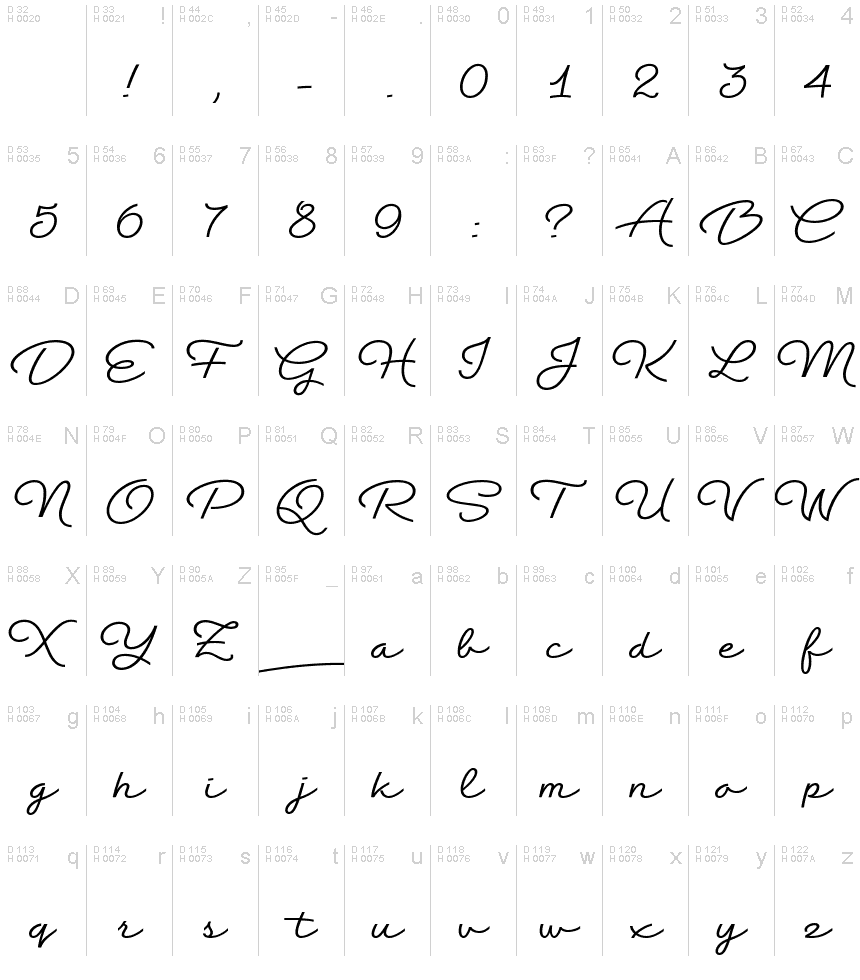
Retro Bistretto Regular
Retro Bistretto, a creation of Roland Huse Design, exudes a charming blend of nostalgia and contemporary flair. This handwritten font captures the essence of classic penmanship with a semi-light weight and semi-expanded width that gives it an airy yet substantial presence. The flowing curves and slight slant reflect a personal touch, making it ideal for designs that require an intimate yet polished look.
Its aesthetic is versatile enough to adorn invitations, boutique branding, or editorial content where personality is key. Retro Bistretto's style walks the line between casual elegance and sophisticated whimsy, making it an excellent choice for creative projects looking to convey character without sacrificing readability or style.